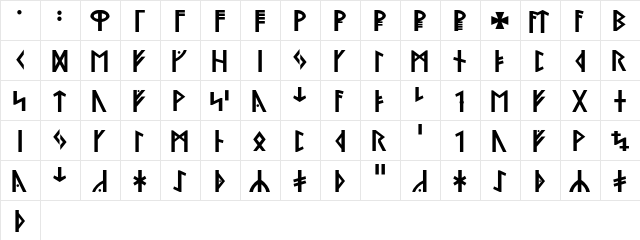
Ny Stormning Hf
| Foundry | Cannot Into Space Fonts |
| Designer | Robert Jablonski, Mew Too |
Design Context for Ny Stormning Typeface
Ny Stormning is a composed and adaptable typeface that performs quietly and consistently across a wide range of design contexts.